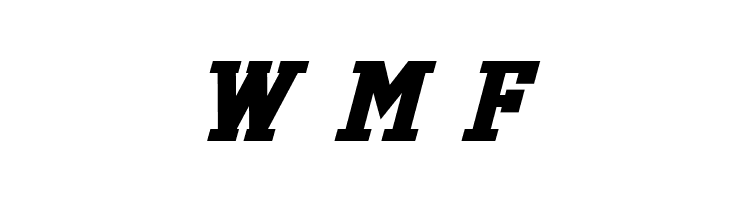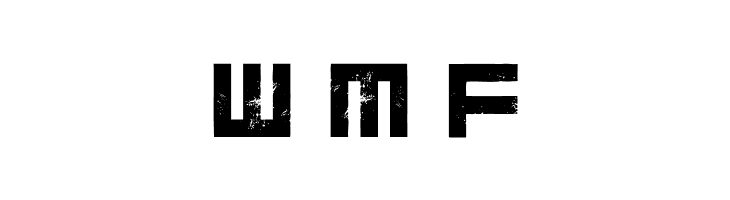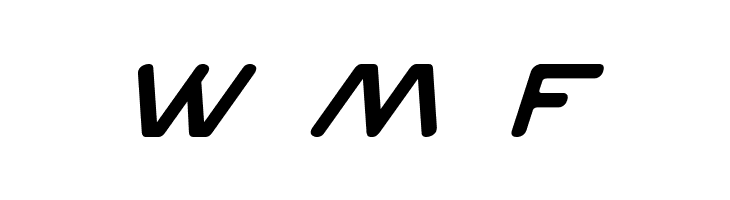
Bold, italic font with angular lines and a dynamic, modern style.
A bold, italic font with strong, thick strokes and a modern style.
A bold, italicized font with strong, dynamic strokes.
A bold, distressed font with a vintage, gritty texture.
A dynamic, edgy font with sharp, angular strokes and a hand-drawn appearance.
A bold, italic font with sharp angles and a modern, dynamic style.
Decorative font featuring detailed animal and nature silhouettes.
A modern italic font with clean lines and a subtle slant.
A bold, italicized font with sharp, angular edges and a futuristic look.
A bold, italic typeface with angular lines and a dynamic slant, perfect for impactful designs.
A bold, italic, modern font with clean lines and dynamic slanted letterforms.
A classic serif font with extra bold weight and italic style, perfect for impactful headlines.
A modern, semi-bold, italic sans-serif font with clean lines and balanced proportions.
A classic serif typeface with extra bold, italic, and extra condensed features.
A bold, italicized font with thick strokes and dynamic slant.
A bold, italicized font with strong, consistent strokes and a dynamic slant.
A bold, italicized font with strong strokes and a modern aesthetic.
A bold, semi-condensed italic typeface with high contrast, ideal for impactful headlines.
A playful, handwritten font with bold, rounded strokes and a casual feel.
A geometric, minimalist font with thin, linear strokes and angular shapes.
A bold, italic serif font with strong strokes and pronounced serifs.
A bold, distressed font with a modern, grunge style.
A sleek, futuristic font with smooth curves and a dynamic italic slant.
A bold, italicized font with geometric outlines and a dynamic style.
A modern, italicized font with sleek lines and fluid motion.
A modern, geometric font with a condensed structure and clean lines.
A bold, futuristic font with angular, geometric shapes.
A bold, futuristic font with geometric shapes and rounded edges.
A bold, futuristic font with geometric shapes and a modern, industrial aesthetic.
A bold, modern font with clean, geometric shapes and strong impact.
A bold, italicized font with a futuristic and angular design.
A bold, futuristic font with geometric shapes and sharp angles.
A futuristic, angular italic font with a dynamic and high-tech aesthetic.